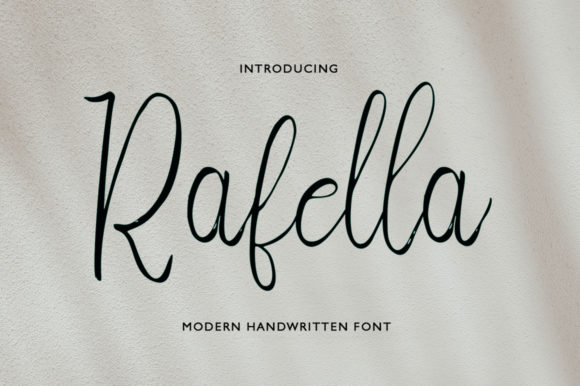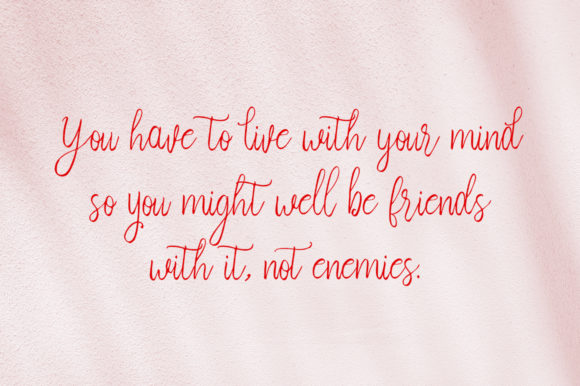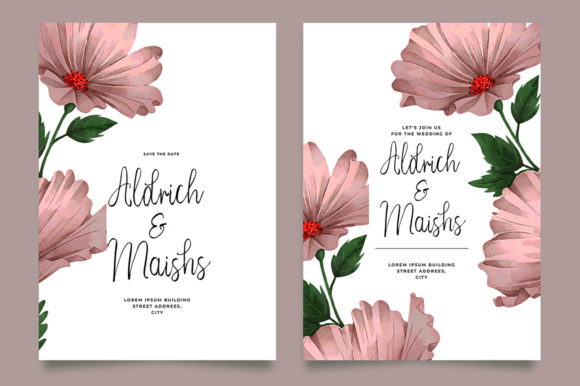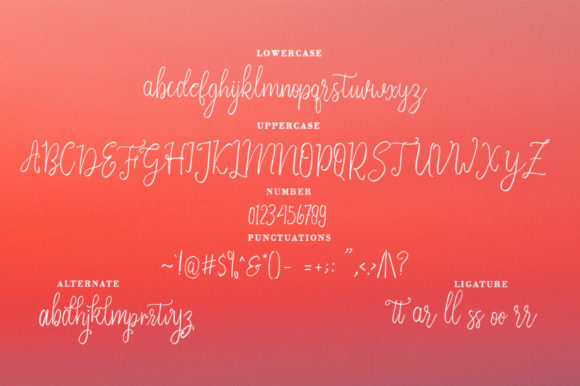
HomeScript FontsRafella Font Script Fonts Rafella Font FacebookXPinterestWhatsApp Rafella Font Poster 2 Rafella Font Poster 3 Rafella Font Poster 4 About Rafella Font Want to create awesome typography creations, choose Rafella. It’s hand brush font will blow you away! DOWNLOAD NOW People also explored Milesa Font Martinez Gauttaro Font Amalia Faradila Font Bold Script Font Bundle Vol 2 Glampers Font Auloriel Font Raphika Font Waiting for You Font 337 0 TagsRafella Font Previous articleInside Lover FontNext articleSymbian Cute Font LEAVE A REPLY Cancel reply Comment: Please enter your comment! Name:* Please enter your name here Email:* You have entered an incorrect email address! Please enter your email address here Website: Save my name, email, and website in this browser for the next time I comment. Personal Use Free Zelega Zenega Personal Use Free Read more about this font Remember Personal Use Free Read more about this font Leadent Script Personal Use Free Read more about this font Angelika Playful Personal Use Free Read more about this font BLOG Modern Sans-Serif Fonts That Brands Love in 2025 In 2025, modern sans-serif fonts remain a top choice for brands looking to project clarity, professionalism, and... Best Fonts for YouTube Videos: Make Your Thumbnails Stand Out To increase your work productivity, choose the most readable fonts. Free vs Paid Fonts: Why Investing in Premium Fonts Is Worth It